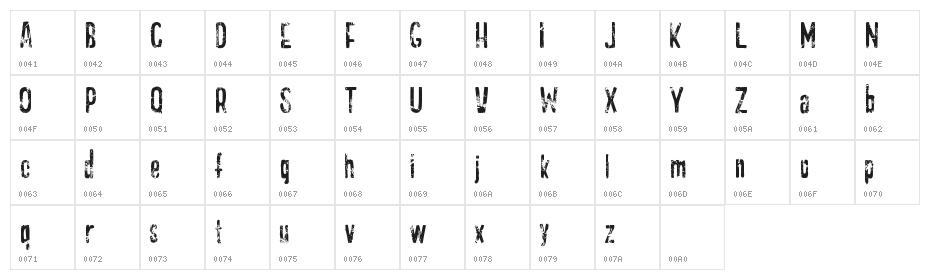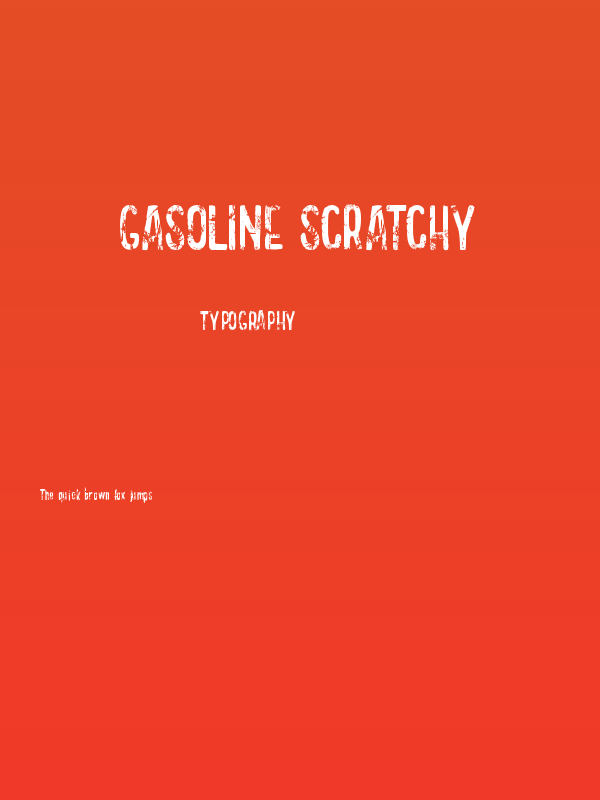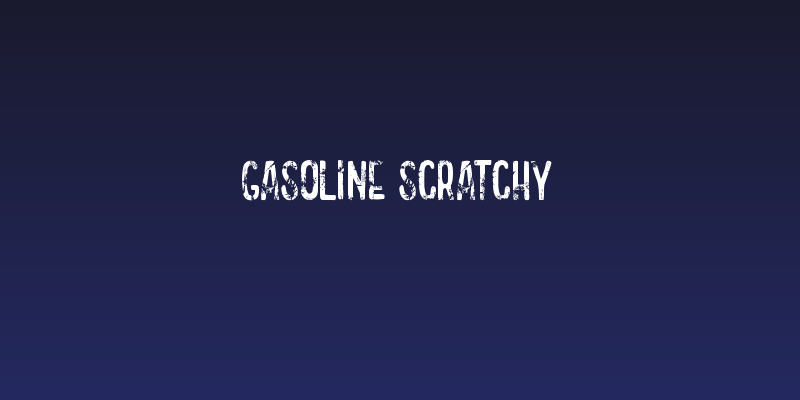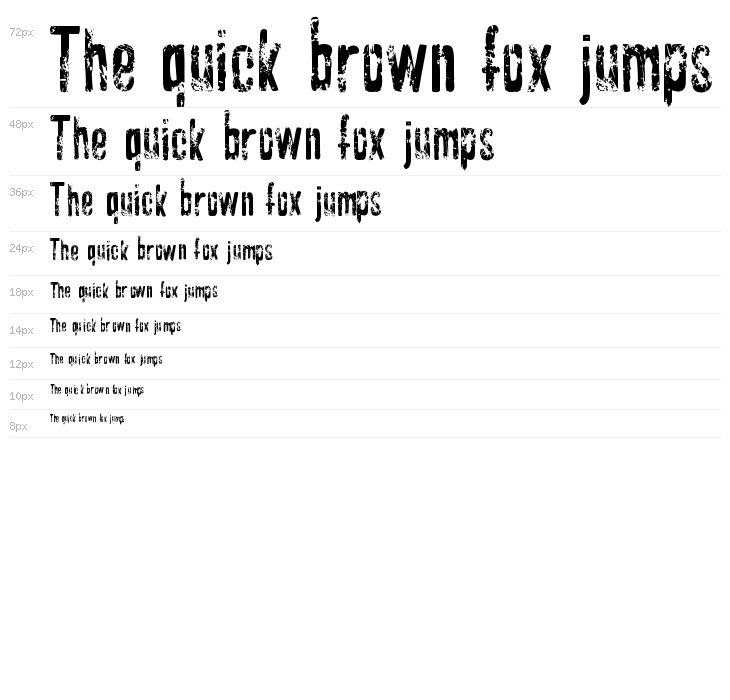
GASOLINE scratchy Font
GASOLINE scratchy Description
This font features a distressed, scratchy texture that gives it a rugged and worn appearance. The characters are bold and impactful, with a rough, uneven surface that suggests a vintage or grunge aesthetic. The uppercase and lowercase letters maintain a consistent style, with the texture adding a unique character to each glyph. The numerals and special characters follow the same design, ensuring a cohesive look across all text elements. This font is ideal for projects that require a bold statement with an edgy, rebellious feel.
Overall StyleGrunge, Vintage
Use CaseHeadlines, Posters, Branding
Proposed ProjectsPerfect for album covers, posters, branding for edgy products, or any design needing a vintage or grunge touch.